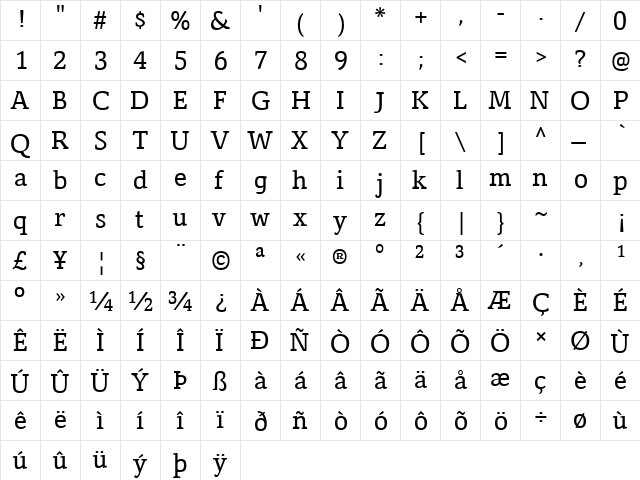
Corzinair Regular
Design Context for Corzinair Typeface
Corzinair is a composed and adaptable typeface that performs quietly and consistently across a wide range of design contexts.
Pro Tip: Pair Corzinair with a font of contrasting weight or personality to build a more expressive typographic hierarchy.